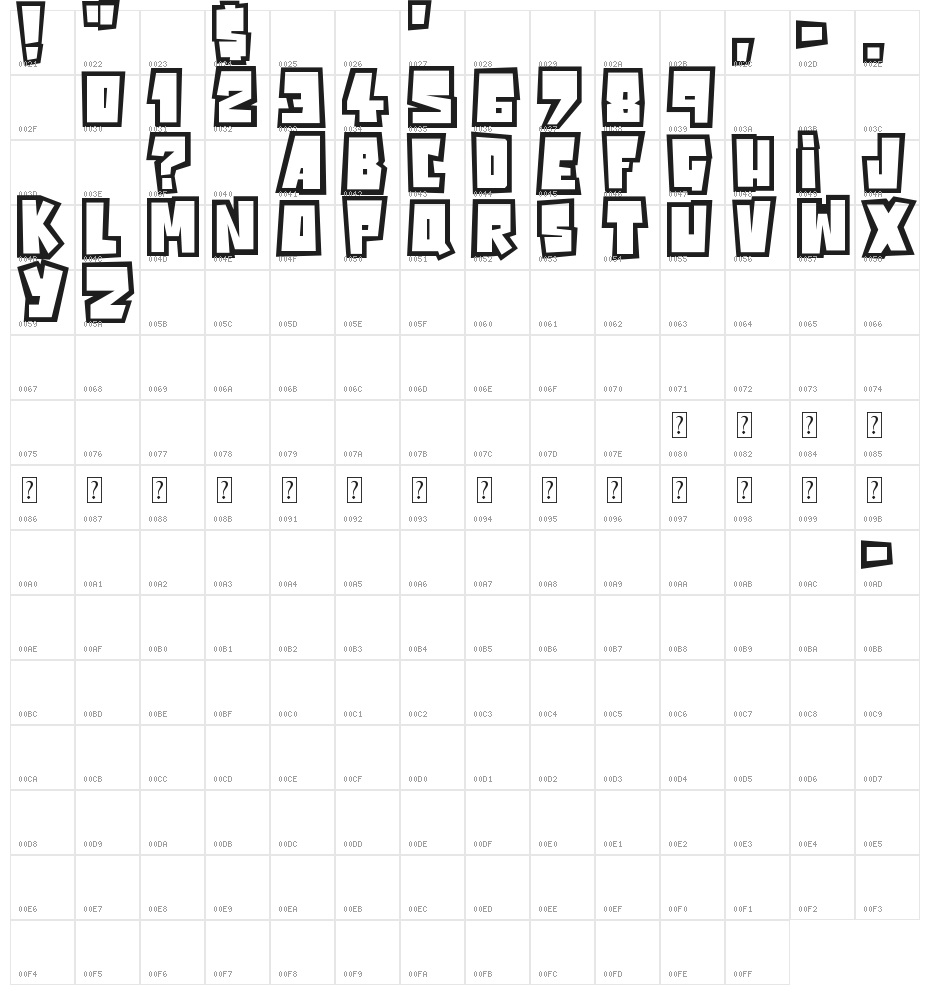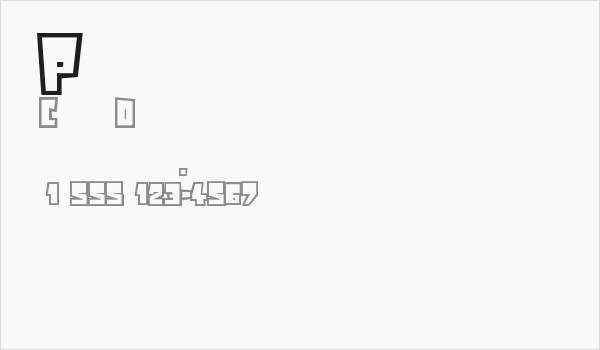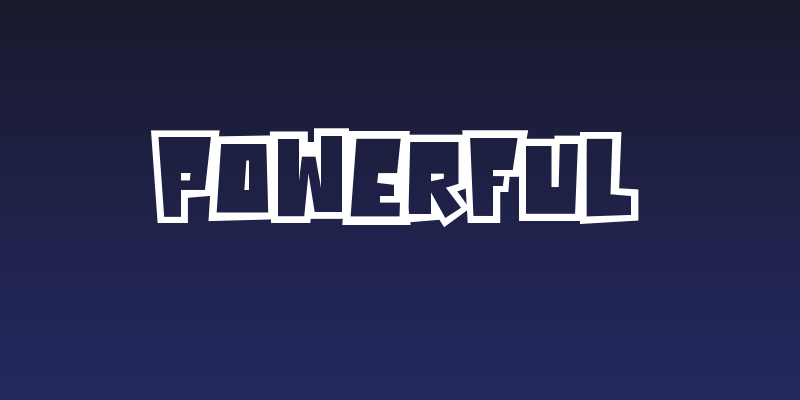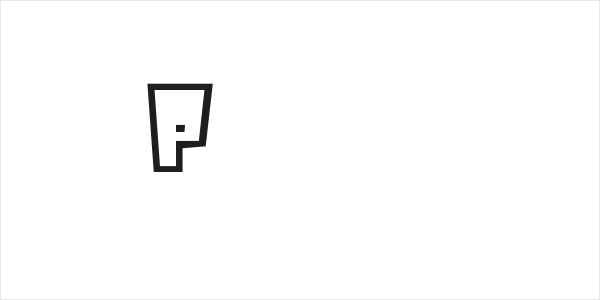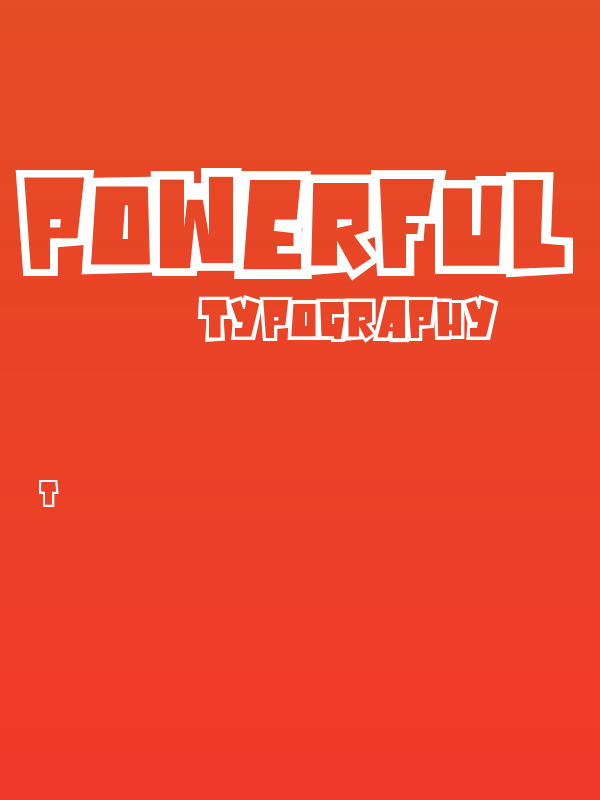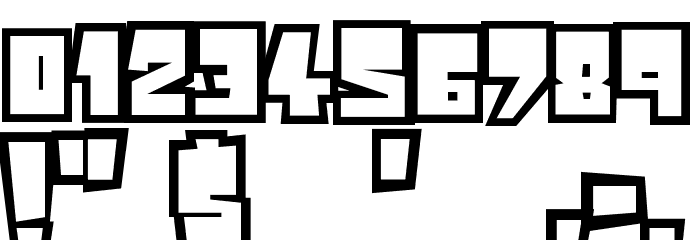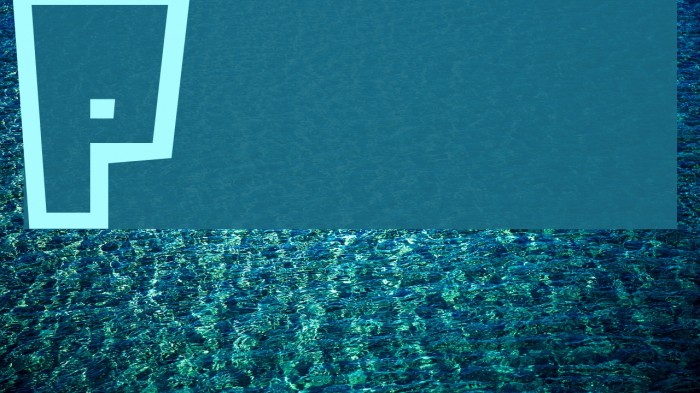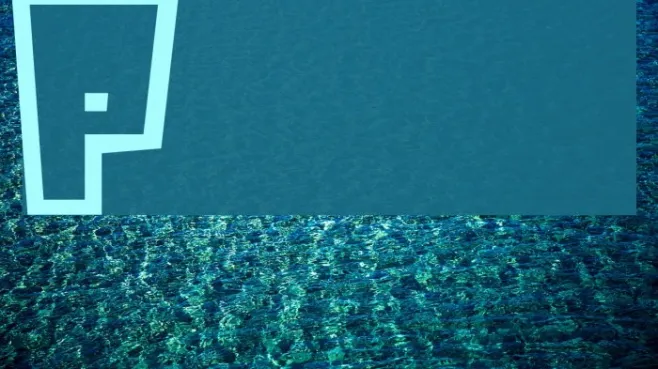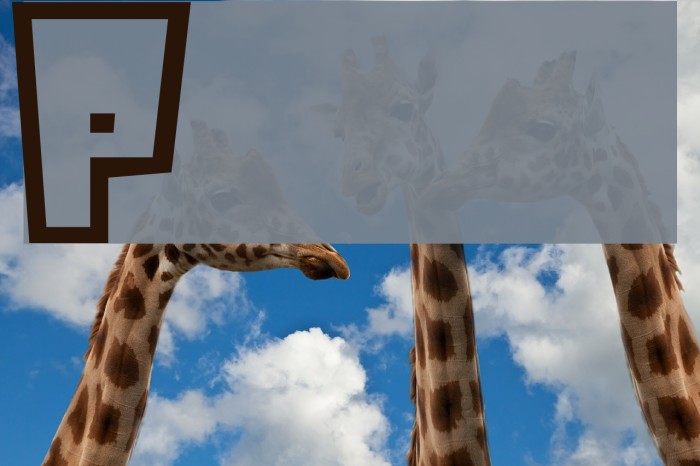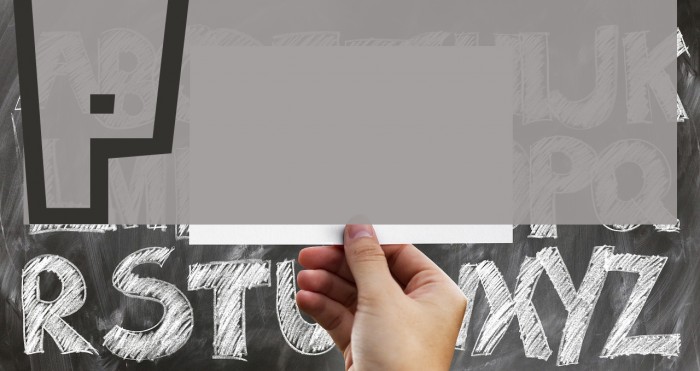
Powerful Font
Powerful Description
This font features bold, blocky characters with a strong, impactful presence. Each letter is outlined with a thick black border, enhancing its visibility and making it stand out. The characters are designed with sharp angles and a geometric style, giving them a modern and edgy appearance. The numbers and special characters follow the same design principles, ensuring consistency across the entire character set. This font is ideal for projects that require a bold statement or a powerful visual impact.
| Proposed Projects | Ideal for posters, headlines, logos, and any design needing a strong visual impact. |